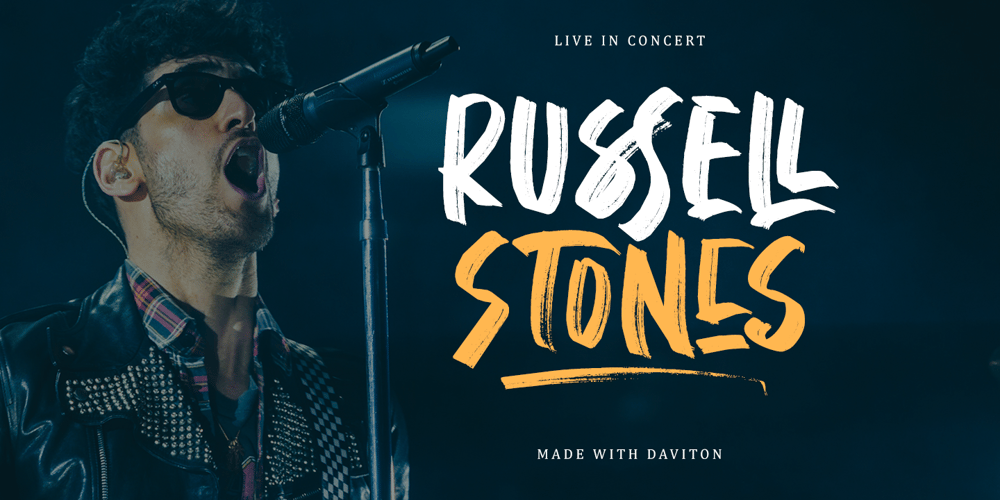
Daviton Font Family was designed by Sarid Ezra and published by Sarid Ezra. Daviton contains 2 styles and family package options. Introducing, Daviton!Daviton is a new handmade font. You can use these fonts for various purposes such as making realistic handwriting, for promotions, or other purposes that will make your design more real as handmade. This font also contain ligatures and underline.What will you get: Daviton Solid Daviton Brush Happy Creating!